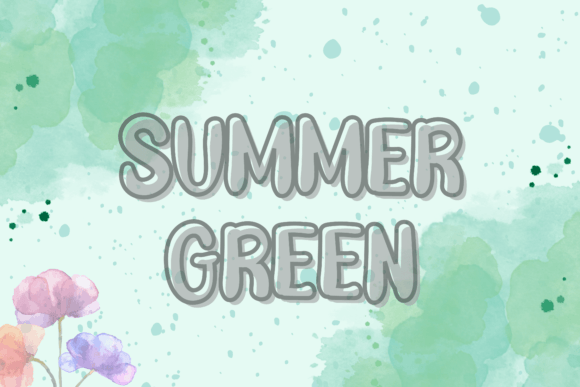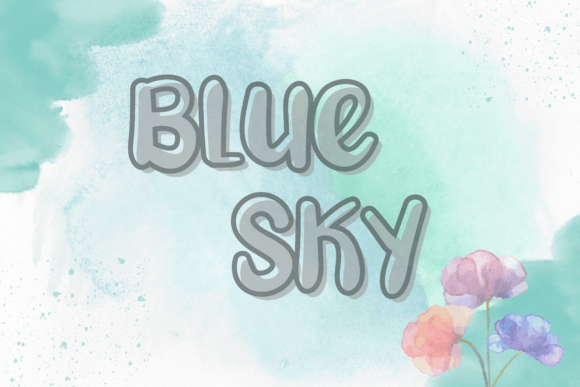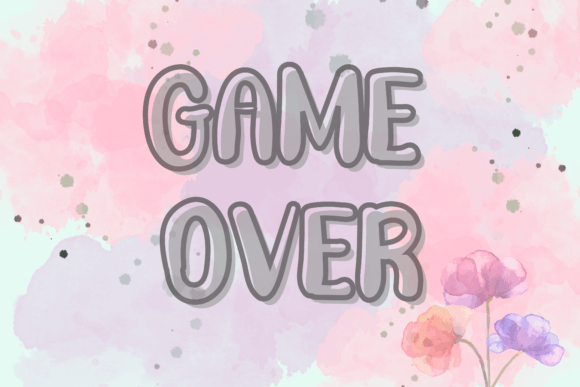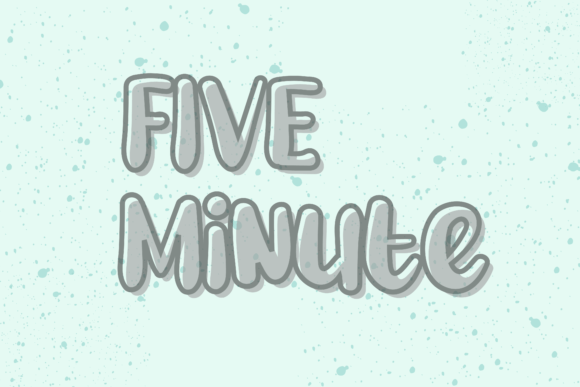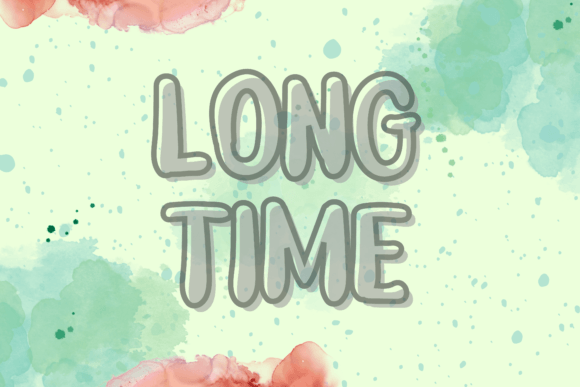
Introduction to Mixture Font
Have you ever been brainstorming ideas for a creative project, and suddenly, the perfect font pops into your mind? For designers, finding that elusive font can be the difference between a project that shines and one that falls flat. This is where the Mixture Font comes in – a sweet and cute handwritten font that’s perfect for adding a personal touch to your designs.
With its charming and beautiful aesthetic, the Mixture Font is an ideal choice for logos, wedding invitations, t-shirts, letterheads, labels, news, posters, badges, and many more. Whether you’re working on a free download project or a high-quality design, this font is sure to elevate your creative work. Plus, its transparent background makes it easy to use as a design resource in a variety of settings.
Key Features of Mixture Font
- High-quality, professional design suitable for various creative projects
- Transparent background, allowing for effortless layering and customization
- Designed with a unique blend of styles, making it perfect for designers seeking a distinctive look
- Resolution-independent, ensuring crisp and clear display at any size
- Perfect design resource for graphic designers, digital artists, and anyone looking for a versatile font
Honest Review: Mixture Font
I recently had the opportunity to work with the Mixture Font, and I must say, it’s been a game-changer for my creative projects. This high-quality font is a great addition to any design resource.
- ✨ Customizability: The Mixture Font offers a wide range of customization options, making it perfect for any project.
- ✨ Unique Style: The font’s unique style sets it apart from other fonts in the market, giving your design a distinctive touch.
One minor limitation I found was the lack of support for transparent backgrounds, which can be a bit frustrating at times.
- ⚠️ Limited Customization Options for Transparent Backgrounds: As mentioned earlier, the font doesn’t support transparent backgrounds, which can limit its use in certain projects.
Overall, I’m impressed with the Mixture Font and would highly recommend it to designers looking for a high-quality, free download font for their creative projects.
Tips for Getting the Most Out of Mixture Font
Use Mixture Font with a transparent background to create a modern and sleek design.
Combine Mixture Font with other design resources, such as images or graphics, to create a unique and eye-catching design.
Experiment with different font sizes and styles to add depth and interest to your design.
Mixture Font is perfect for creating high-quality designs for a variety of creative projects, including:
Business cards and brochures
Posters and flyers
Branding and marketing materials
Q: Does the Mixture Font have a transparent background?
Yes, the Mixture Font has a transparent background, making it easy to layer over images or other design elements. This feature is particularly useful for designers working on projects that require a high level of visual flexibility.